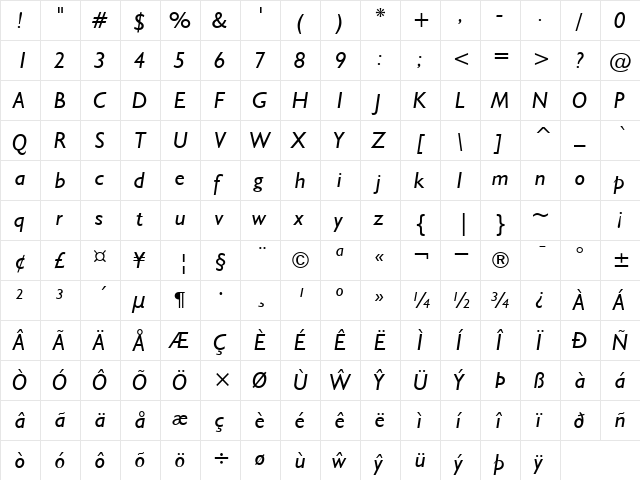
NRB Welsh Gillian Italic Font Preview
NRB Welsh Gillian Italic
Design Context for NRB Welsh Gillian Typeface
NRB Welsh Gillian takes a measured approach to typography — its balanced proportions and neutral character make it a reliable workhorse for both digital and print work. The slanted form adds forward momentum and visual energy.